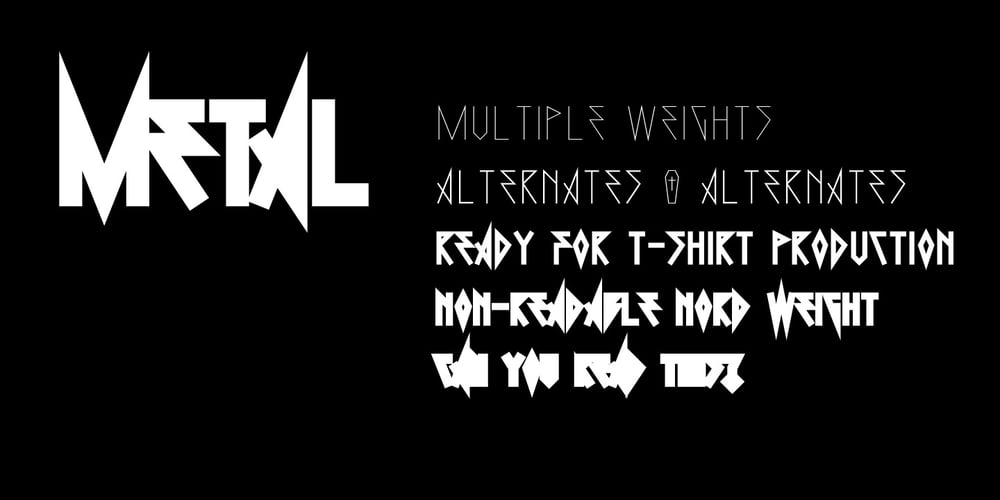
0Metal
0Metal font
0Metal Font Family was designed by Dimitre Lima and published by DMTR.ORG. 0Metal contains 6 styles and family package options. Evil Type in its purest form Multiple Weights, Alternates, Ready for t-shirt production non-readable NORD weight